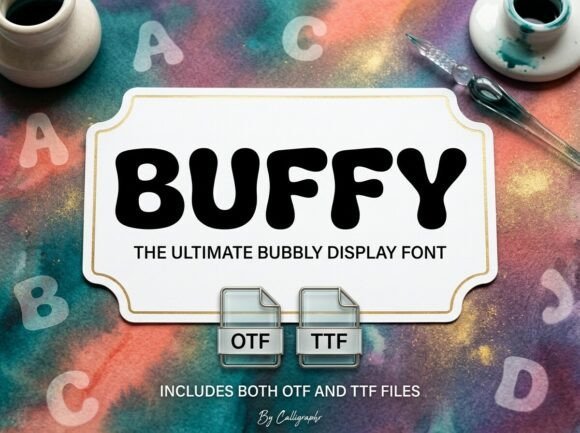
Meet the Font that Brings Your Creativity to Life
Have you ever been working on a design project, and suddenly you’re stuck? The words just won’t come together, and your vision seems to be fading away? It’s a common problem many designers face, but what if we told you there’s a font that can bring new energy to your work?
Introducing the Buffy Font, a high-energy display typeface that’s designed to capture the playful and pop-culture soul of your next creative project. This font features ultra-thick, rounded letterforms that are uniquely characterized by rhythmic, organic curves and a soft-yet-sturdy structural weight. As a designer, you’ll find the Buffy Font invaluable for its ability to bridge the gap between retro 70s nostalgia and modern youth-centric branding.
Buffy Font Key Features
- Font Family: Buffy is a sans-serif font family designed specifically for use in digital displays.
- Character Set: Supports a wide range of languages, including Latin, Cyrillic, and Greek alphabets, making it suitable for global applications.
- Size and Resolution: Designed to be highly legible at various sizes and resolutions, from 10pt to 24pt, and suitable for display on screens with resolutions up to 300 DPI.
- Unique Characteristics: Buffy features a unique blend of modern and retro design elements, with a focus on clear typography and high readability.
Buffy Font Review
I recently had the chance to work with the Buffy Font, and I’m here to share my honest thoughts on its strengths and weaknesses.
- Unique aesthetic: The Buffy Font has a distinctive, whimsical feel that sets it apart from more common fonts.
- Good legibility: At larger sizes, the font is easy to read, making it suitable for body text or headlines.
- Customization options: The font comes in a range of weights and styles, giving designers flexibility to match their project’s tone.
- Limited character set: The Buffy Font is missing some commonly used characters, which can be inconvenient for designers working with non-English text.
- Not ideal for small sizes: At smaller sizes, the font’s unique features can become distracting or even illegible.
Overall impression
The Buffy Font is a great choice for designers looking to add some personality to their projects. While it may not be perfect, its unique aesthetic and customization options make it a valuable addition to any font collection.
Buffy Font Practical Application Guide
Tips for Getting the Most Out of Buffy Font
Use Buffy Font for titles, headings, and emphasis in your designs. It’s particularly effective in creating a bold and eye-catching look. Experiment with different font sizes and combinations to find the perfect balance for your design.
Buffy Font is commonly used in:
- Graphic design and branding materials.
- Print materials such as brochures, flyers, and business cards.
- Online marketing materials such as social media graphics and email campaigns.
Alternatives to Buffy Font for Designers
Great Vibes is a modern, elegant script font that can be used for various design projects. It is ideal for creating a sophisticated and luxurious feel in branding, advertising, and editorial content. Compared to Buffy Font, Great Vibes has a more refined and polished appearance, making it suitable for high-end designs.
Carolyna Pro is a versatile, modern script font that can be used for a wide range of design applications. It is perfect for creating a trendy and youthful vibe in branding, social media, and digital content. Unlike Buffy Font, Carolyna Pro has a more playful and dynamic feel, making it ideal for designs that require a modern twist.
Playfair Display is a luxurious, high-end serif font that is perfect for creating a sophisticated and elegant feel in design. It is ideal for branding, advertising, and editorial content that requires a touch of luxury. Compared to Buffy Font, Playfair Display has a more refined and formal appearance, making it suitable for high-end designs that require a sense of sophistication.